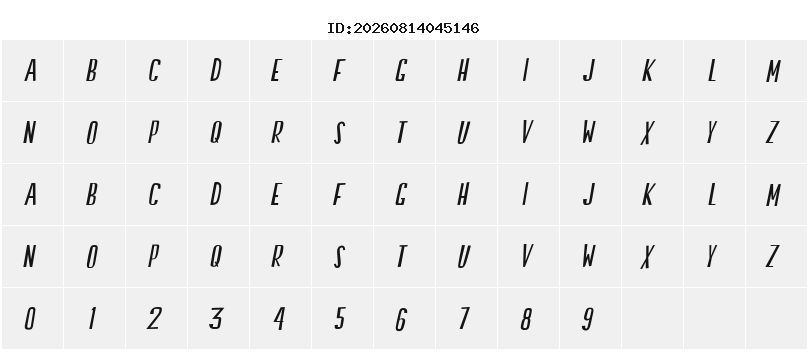
Swallow Falls Preview
• Font Name: Swallow Falls
• Full Font Name: Swallow Falls Italic
About Swallow Falls.ttf
Swallow Falls.ttf is a modern, elegant sans-serif font designed for ultimate readability and visual harmony. Perfect for branding, headlines, web design, and print materials.